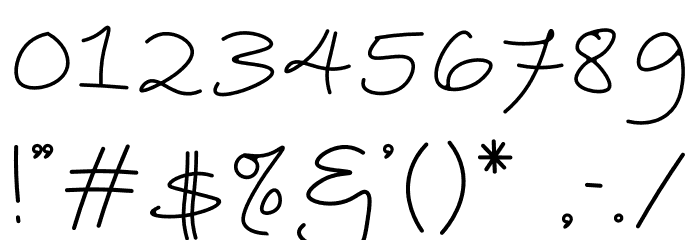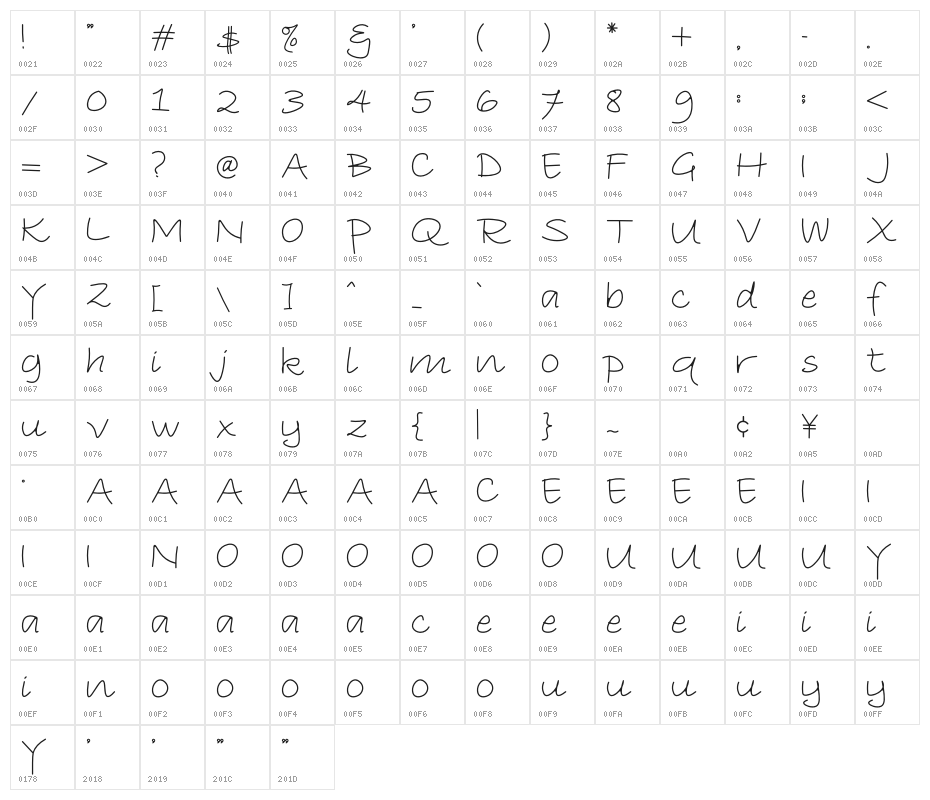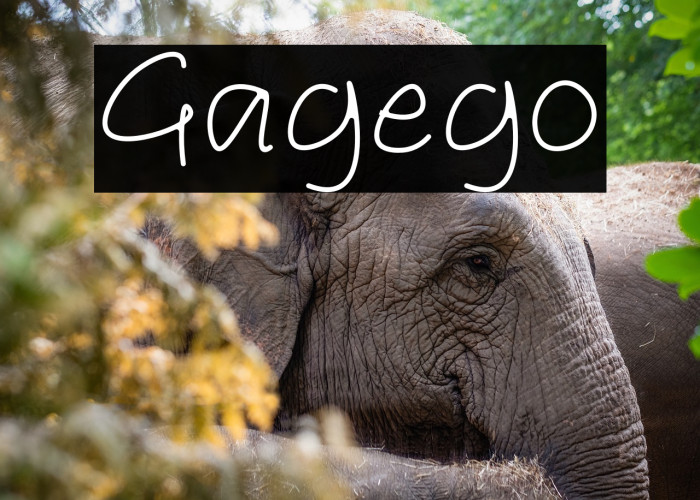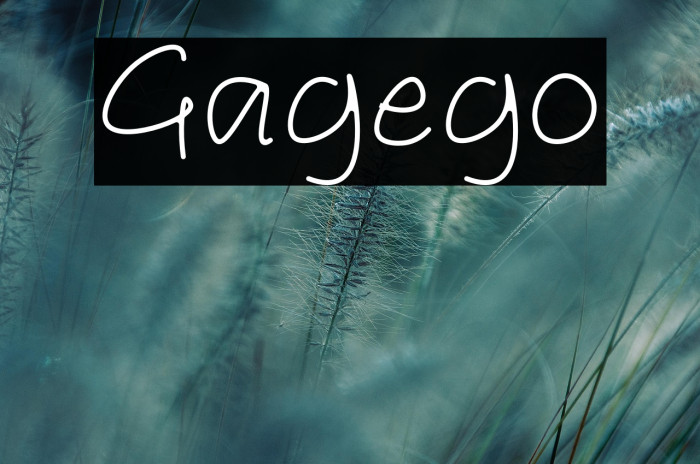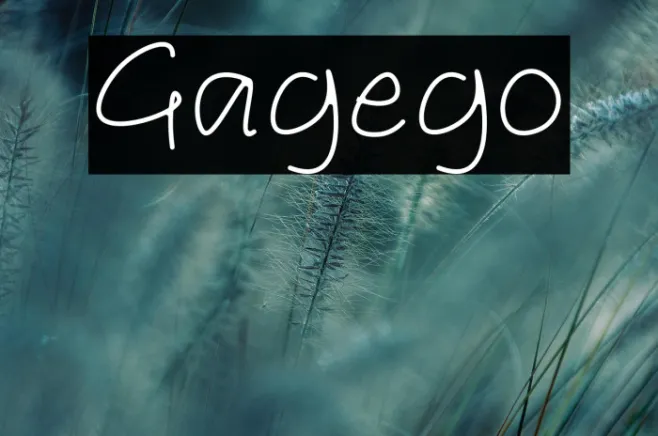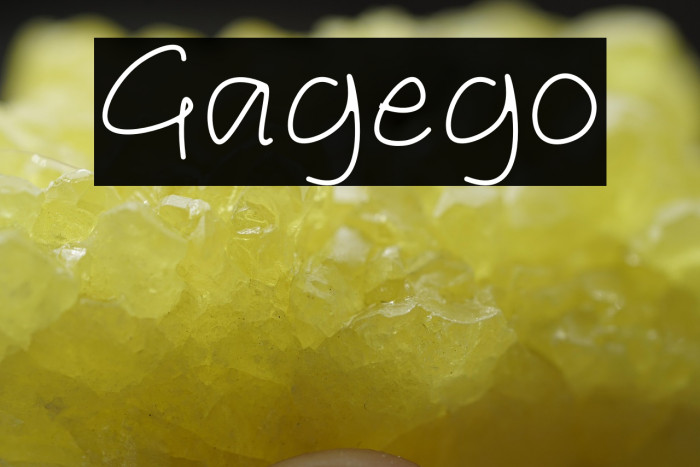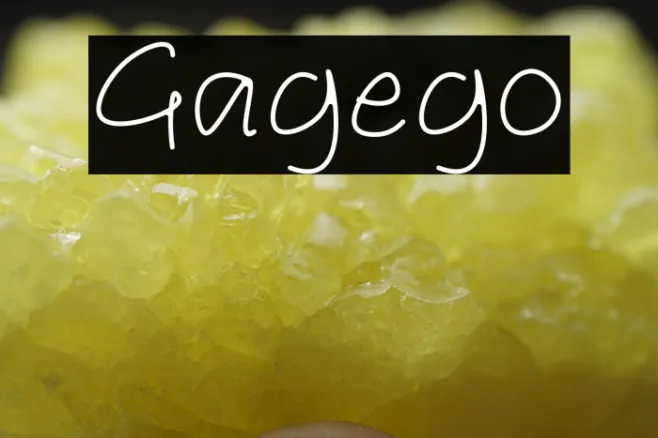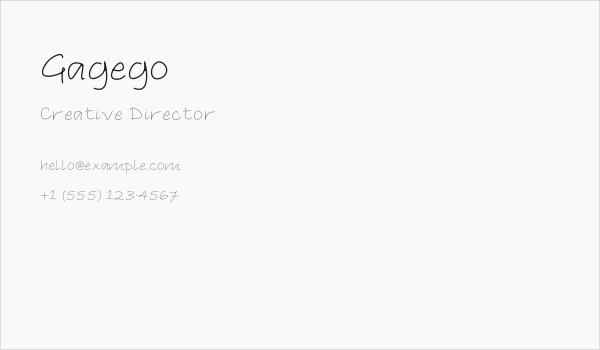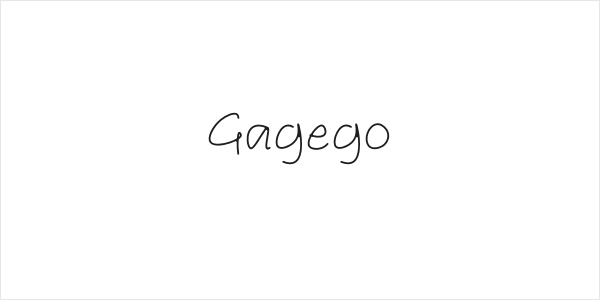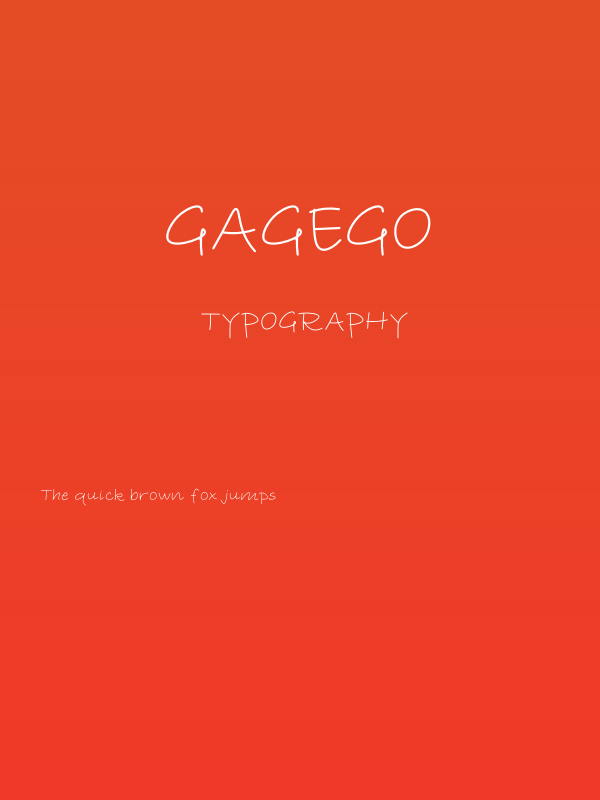
Gagego Font
Gagego Description
This font features a casual, handwritten style that exudes a sense of informality and approachability. The letters are slightly slanted, giving it a dynamic and fluid appearance. The strokes are consistent in thickness, providing a uniform look across all characters. The uppercase letters are well-proportioned, while the lowercase letters have a playful, slightly whimsical quality. The numerals are clear and easy to read, maintaining the same handwritten charm. Special characters are included, each crafted with the same attention to detail, ensuring they blend seamlessly with the rest of the font. This font is perfect for projects that require a personal touch, such as invitations, greeting cards, or casual branding.
| Use Case | Headlines, Informal text, Personal projects |
| Proposed Projects | Ideal for invitations, greeting cards, personal branding, and casual design projects. |